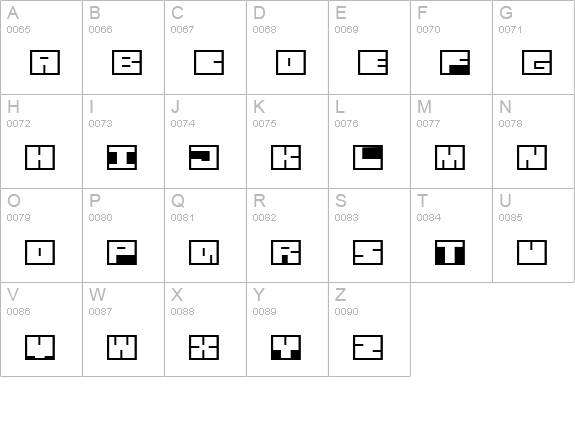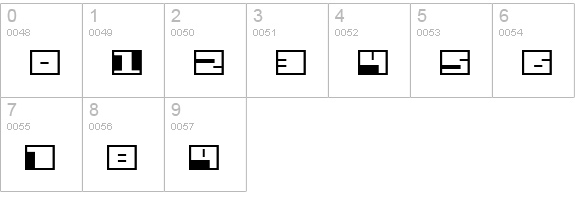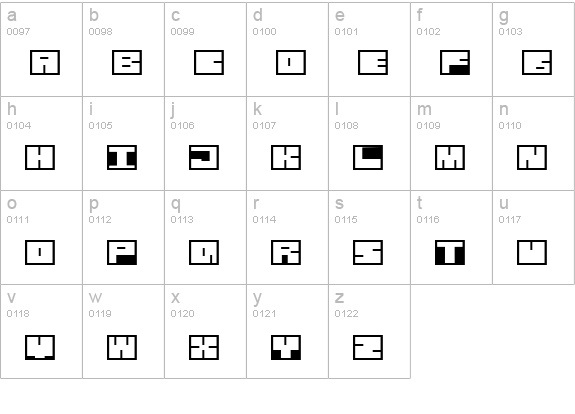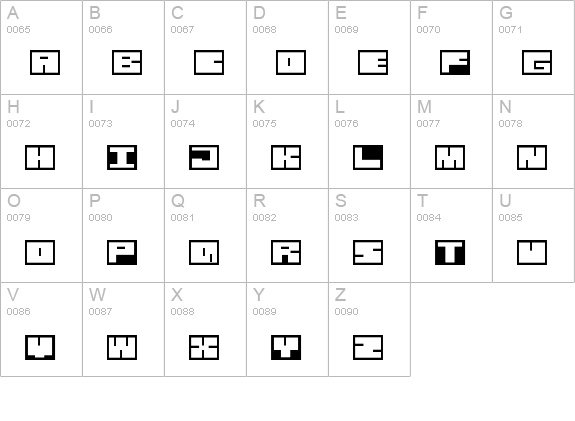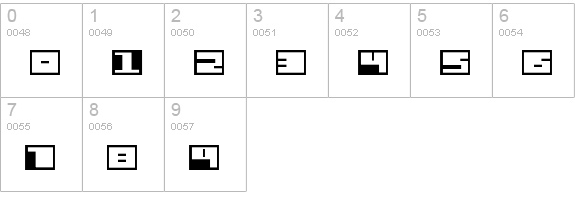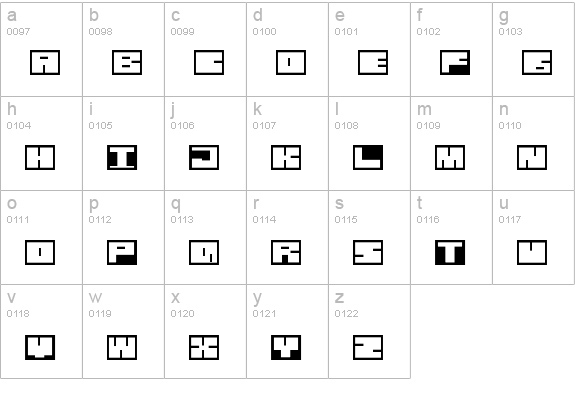
Cornelius Maurits Font Details
The Cornelius Maurits font is a stylish and modern typeface that exudes elegance and sophistication. With its clean lines and distinctive letterforms, this font is perfect for a wide range of design projects, from logos to branding to editorial layouts. What sets Cornelius Maurits apart is not only its timeless appeal but also the fact that it is completely free to download. That's right, you can access this beautiful font at no cost on FontsMarket.com. Whether you're a professional designer looking for a new addition to your font library or a hobbyist seeking to elevate your creative projects, Cornelius Maurits is a versatile option that won't break the bank. Embrace the beauty and versatility of the Cornelius Maurits font today by downloading it for free on FontsMarket.com. Elevate your designs with this elegant and sophisticated typeface that will make a lasting impression on any project.